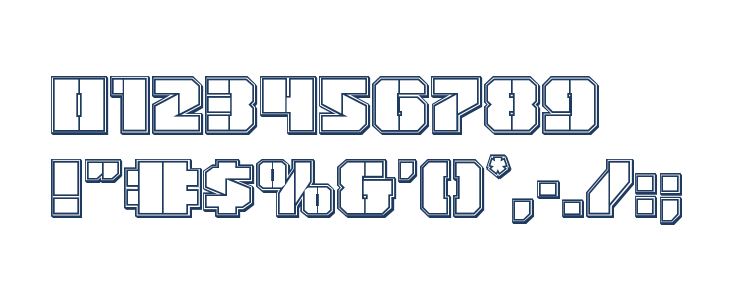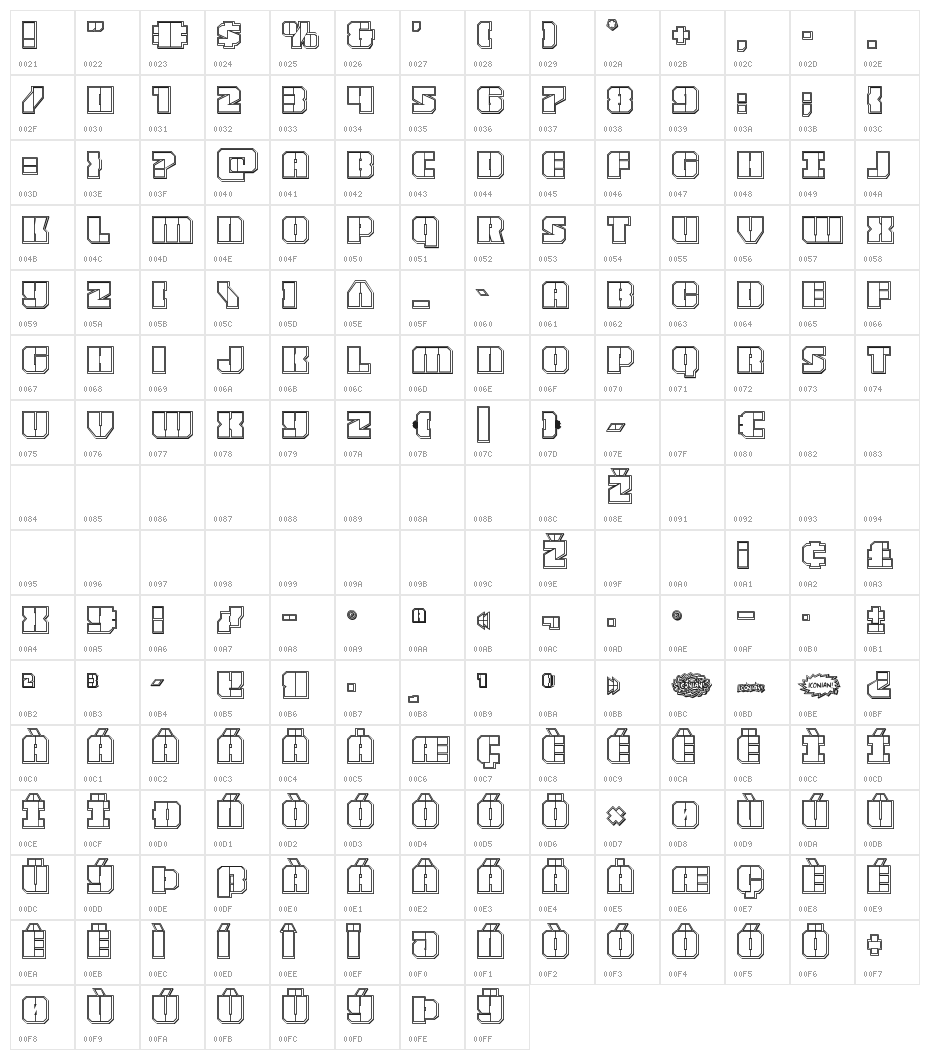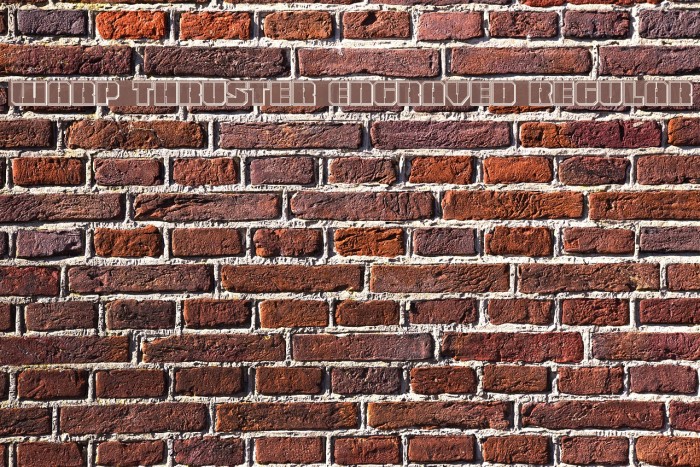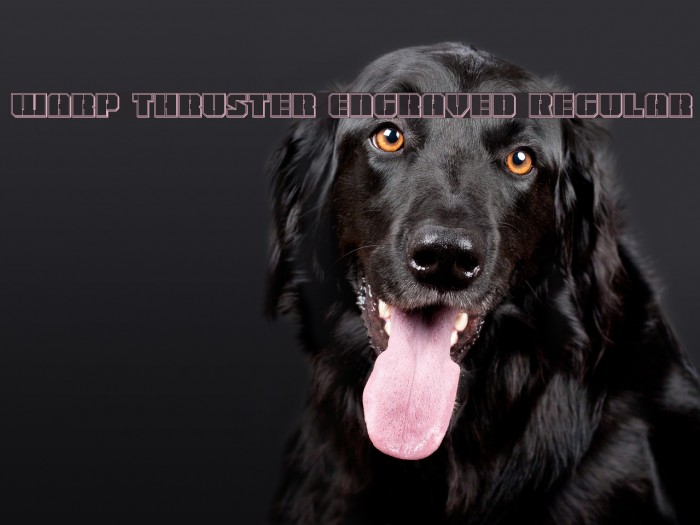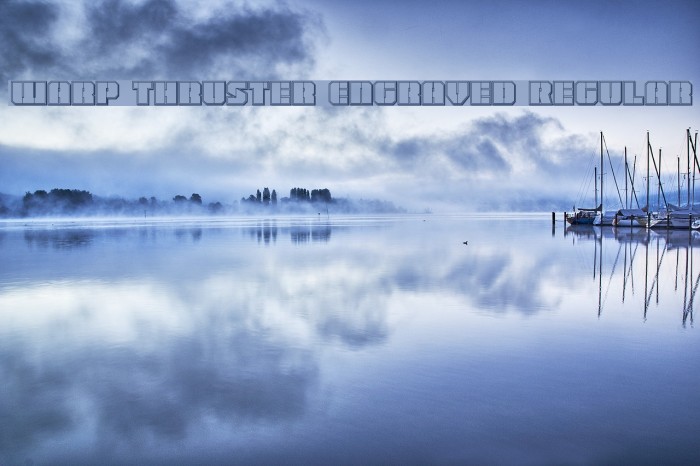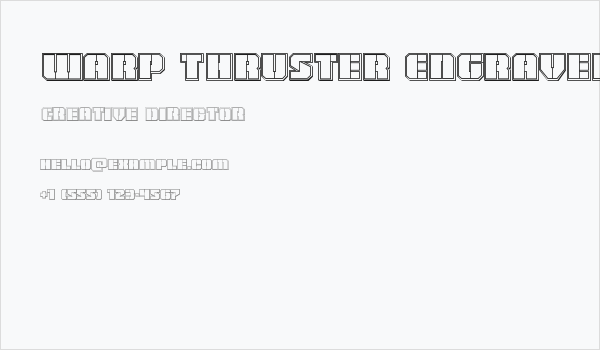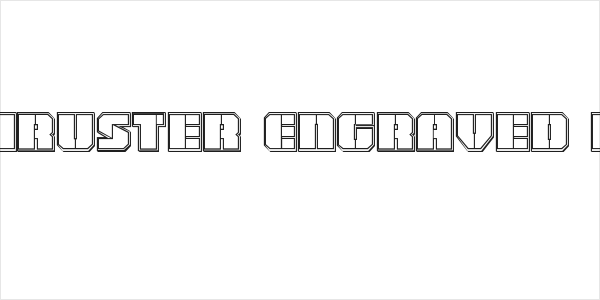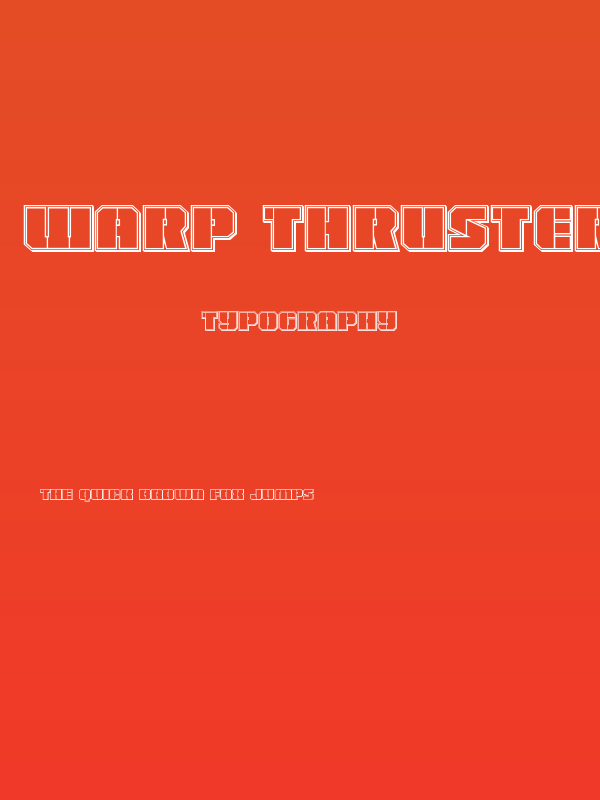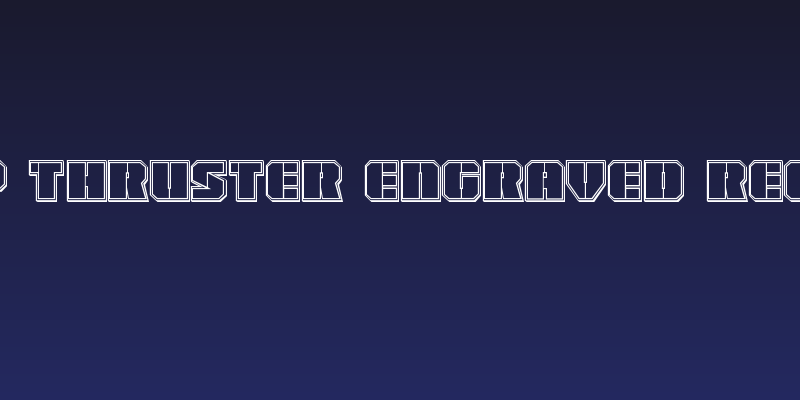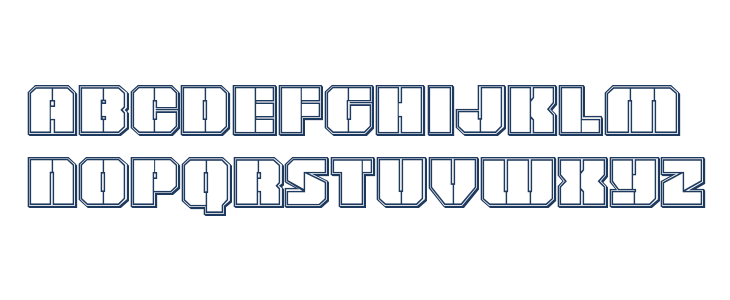
Warp Thruster Engraved Regular Font
Warp Thruster Engraved Regular Description
This font features a bold, futuristic design with a three-dimensional engraved effect. The characters are outlined with a thick border, giving them a strong, impactful presence. The geometric shapes and sharp angles contribute to a modern and industrial aesthetic, making it ideal for projects that require a tech-savvy or sci-fi feel. The uppercase and lowercase letters maintain a consistent style, ensuring uniformity across different text elements. The numerals and special characters are designed to match the boldness and style of the alphabet, providing a cohesive look throughout.
| Proposed Projects | Ideal for sci-fi themed posters, video game graphics, tech branding, and futuristic event invitations. |